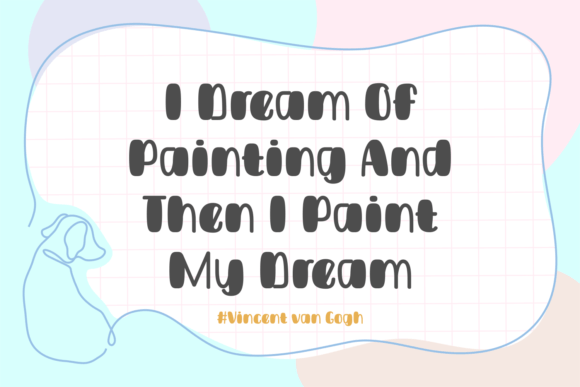
Introducing Capella Playful Font: Add a Sweet Touch to Your Typography Designs
Are you looking for a font that can add a playful and charming touch to your typography designs? Look no further than Capella Playful Font! This chubby handwritten display font is perfect for creating eye-catching invitations, posters, banners, titles, and more. In this article, we’ll dive into the features and benefits of Capella Playful Font and explore how you can use it to take your designs to the next level.
What is Capella Playful Font?
Capella Playful Font is a unique and charming handwritten display font that is designed to add a sweet note to your typography designs. Its chubby and playful letters are carefully crafted to create a friendly and approachable feel that is perfect for a wide range of design projects. Whether you’re creating invitations, posters, banners, or titles, Capella Playful Font is sure to make your designs stand out from the crowd.
Key Features of Capella Playful Font
- Chubby Handwritten Letters: Capella Playful Font features chubby and playful letters that are designed to create a friendly and approachable feel.
- Display Font: This font is perfect for display purposes, making it ideal for titles, headings, and other prominent text elements.
- Sweet and Playful Feel: Capella Playful Font has a sweet and playful feel that is perfect for designs that require a touch of whimsy and charm.
- Easy to Read: Despite its playful nature, Capella Playful Font is easy to read, making it perfect for designs that require a clear and legible font.
Benefits of Using Capella Playful Font
So, why should you use Capella Playful Font in your designs? Here are just a few benefits of using this charming font:
- Adds a Touch of Whimsy: Capella Playful Font adds a touch of whimsy and charm to your designs, making them more engaging and eye-catching.
- Perfect for a Wide Range of Designs: This font is perfect for a wide range of designs, including invitations, posters, banners, titles, and more.
- Easy to Pair with Other Fonts: Capella Playful Font is easy to pair with other fonts, making it perfect for designs that require a combination of fonts.
- High-Quality Design: This font is designed to high-quality standards, ensuring that your designs look professional and polished.
How to Use Capella Playful Font
Using Capella Playful Font is easy! Here are just a few tips for incorporating this font into your designs:
- Invitations: Use Capella Playful Font to create eye-catching invitations for parties, weddings, and other special events.
- Posters: This font is perfect for creating posters for movies, events, and other promotions.
- Banners: Use Capella Playful Font to create banners for websites, social media, and other online platforms.
- Titles: This font is perfect for creating titles for books, movies, and other creative projects.
Tips for Getting the Most Out of Capella Playful Font
Here are just a few tips for getting the most out of Capella Playful Font:
- Experiment with Different Sizes: Try out different sizes of Capella Playful Font to see how it looks in different contexts.
- Pair with Other Fonts: Experiment with pairing Capella Playful Font with other fonts to create a unique and eye-catching combination.
- Use it Sparingly: Use Capella Playful Font sparingly to create emphasis and add visual interest to your designs.
- Have Fun: Most importantly, have fun with Capella Playful Font! This font is designed to add a touch of whimsy and charm to your designs, so don’t be afraid to get creative.
In conclusion, Capella Playful Font is a charming and playful handwritten display font that is perfect for adding a sweet note to your typography designs. With its chubby and playful letters, this font is sure to make any creation stand out! Whether you’re creating invitations, posters, banners, titles, or more, Capella Playful Font is a great choice. So why not give it a try and see how it can add a touch of whimsy and charm to your designs?